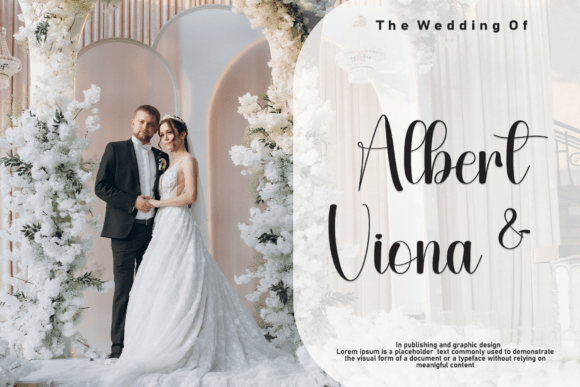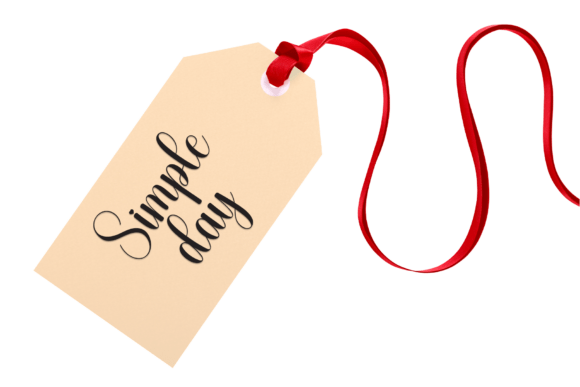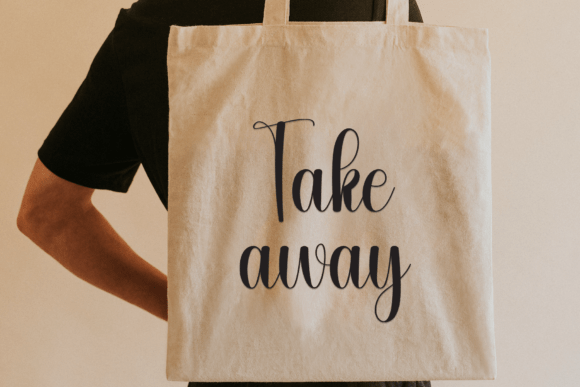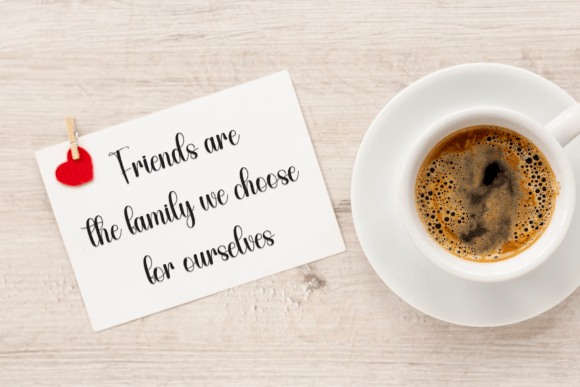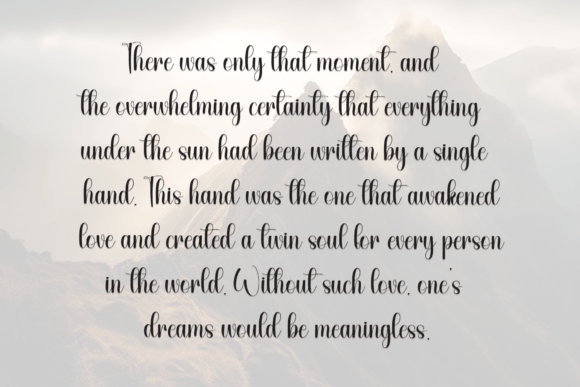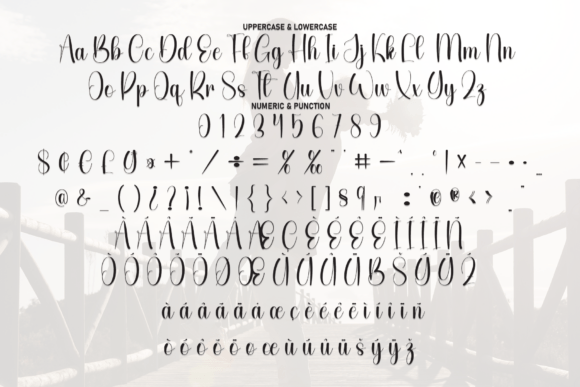
One such moment might be when you discover the perfect font to elevate your project. For many designers, that moment comes with the Bridge Valentines Font – a stylish script font that exudes elegance and contemporary charm. With its fluid curves and carefully crafted letterforms, it’s the perfect blend of hand-drawn calligraphy and modern sophistication.
Whether you’re a seasoned designer or just starting out, the Bridge Valentines Font is an invaluable addition to your toolkit. Its versatility and visual appeal make it a go-to choice for logos, invitations, packaging, and social media graphics, adding a refined and sophisticated touch to any design.
Key Features of Bridge Valentines Font
- Unique Characteristics: This font features a beautiful, handwritten style with a romantic and elegant touch, perfect for creating eye-catching Valentine’s Day designs, invitations, and cards.
- Scalability: Designed to be highly scalable, allowing for seamless use in various design applications, from small text to large headlines, without compromising on quality or readability.
Bridge Valentines Font Review
As a designer, I was initially drawn to the whimsical and romantic vibe of the Bridge Valentines Font. ✨ Its beautiful, flowing lines and elegant script style make it perfect for adding a touch of love and sentiment to any design project. The font’s versatility is another major plus, allowing it to be used in a variety of contexts, from wedding invitations to social media graphics.
Here are some of the things that I like about the Bridge Valentives Font:
- ✨ Elegant and flowing lines
- ✨ Perfect for romantic and sentimental designs
- ✨ Highly versatile
- ✨ Beautiful for use in wedding invitations, social media graphics, and more
- ⚠️ Limited to uppercase and lowercase letters, with no support for numbers or special characters
- ⚠️ May not be suitable for large blocks of text, as the font can be quite ornate and difficult to read
- ⚠️ May require some manual spacing adjustments to get the font looking just right
Overall, I think the Bridge Valentines Font is a beautiful and charming addition to any designer’s toolkit. While it may have some limitations, its unique style and versatility make it a great choice for a wide range of design projects. Just be sure to use it thoughtfully and in context, and you’ll be sure to get the most out of this lovely font.
Getting the Most Out of the Bridge Valentines Font
For the best results, use the Bridge Valentines Font in combination with other design elements, such as graphics, images, or textures. Experiment with different font sizes, colors, and styles to create a unique and eye-catching design.
The Bridge Valentines Font is ideal for designing Valentine’s Day cards, posters, and other promotional materials. It’s also great for creating social media graphics, invitations, and other digital content.